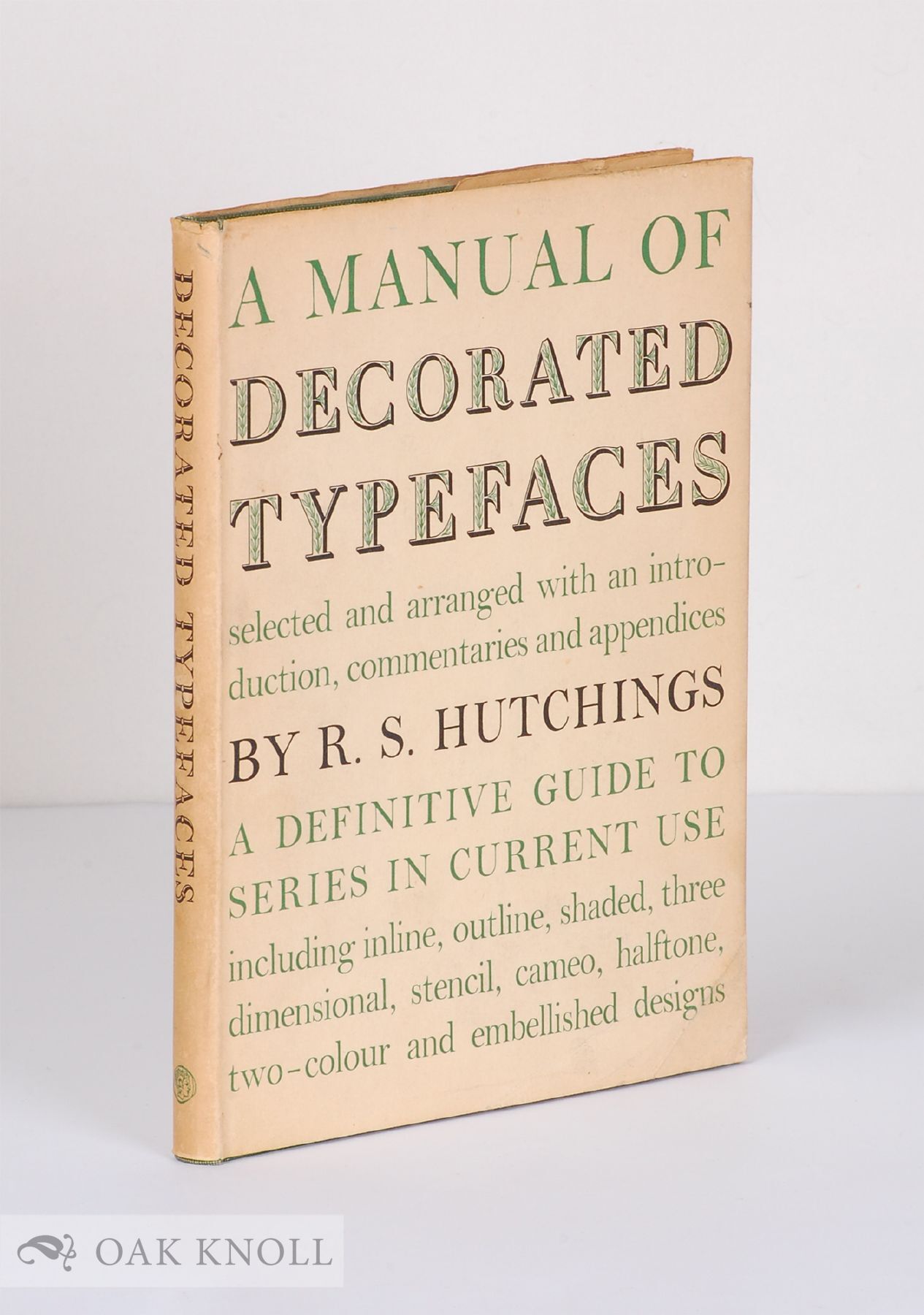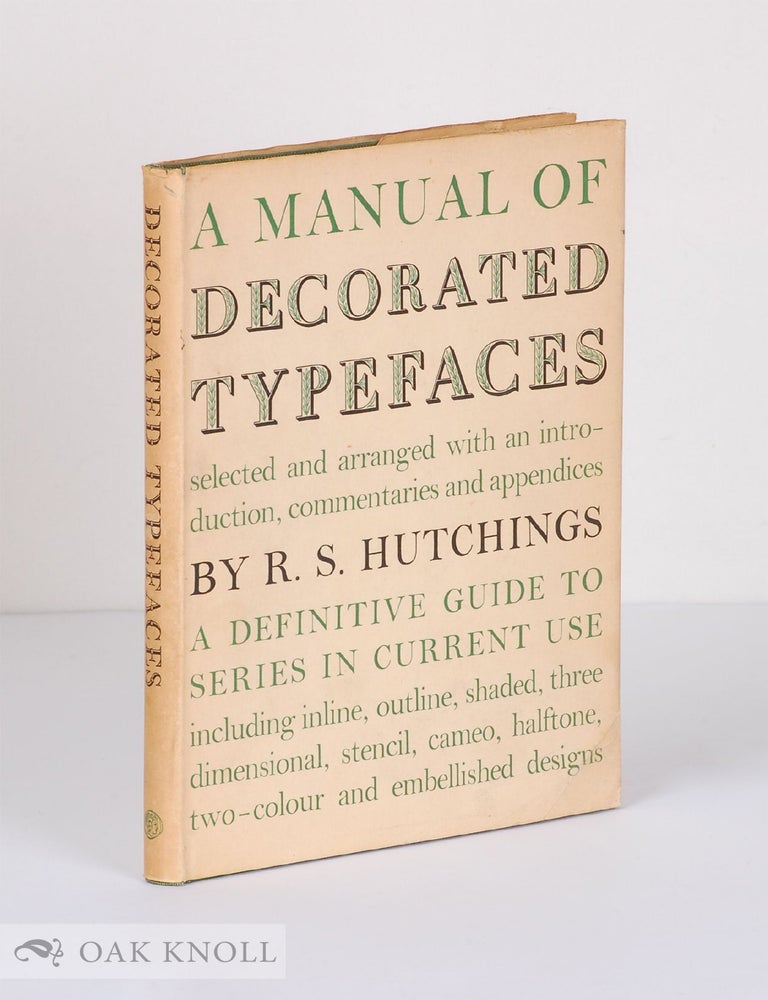
A MANUAL OF DECORATED TYPEFACES; A DEFINITIVE GUIDE TO SERIES IN CURRENT USE.
First edition. Ownership inscription 'M. Caflisch' in pencil on the front free endpaper. A near fine copy. An excellent reference guide with commentary about each of the typefaces and an introducton to the historical use and development of decorative type.